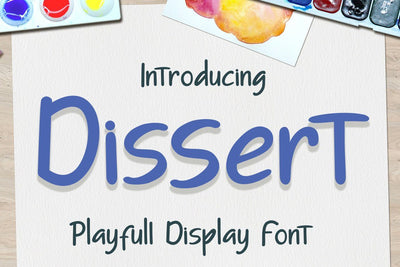
Dissert Playfull Display Font
Dissert is a playful and unique display font with a charming feel. Get inspired by its unique authentic charm!
Ligature\
Basic Latin Language Support (AÀÁÂÃÄÅCÇDÐEÈÉÊËIÌÍÎÏÑOØÒÓÔÕÖUÙÜÚÛWYÝŸÆß )